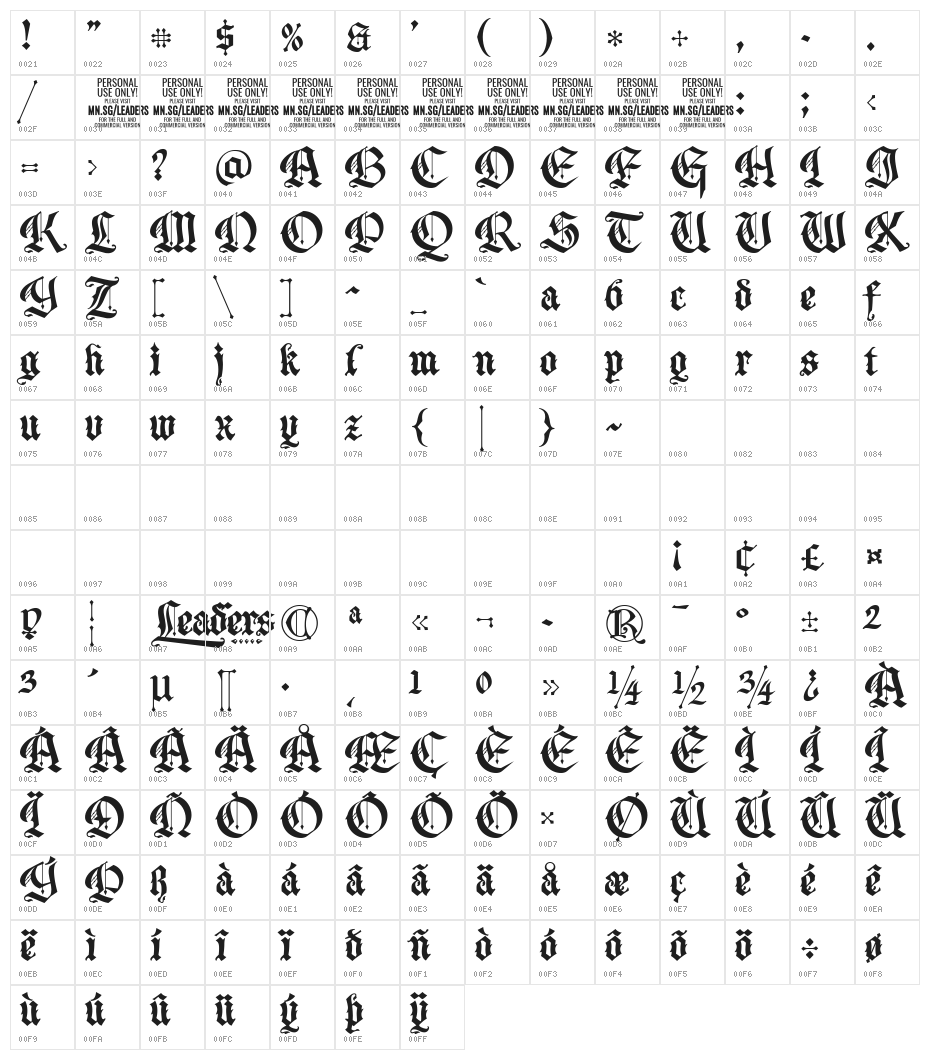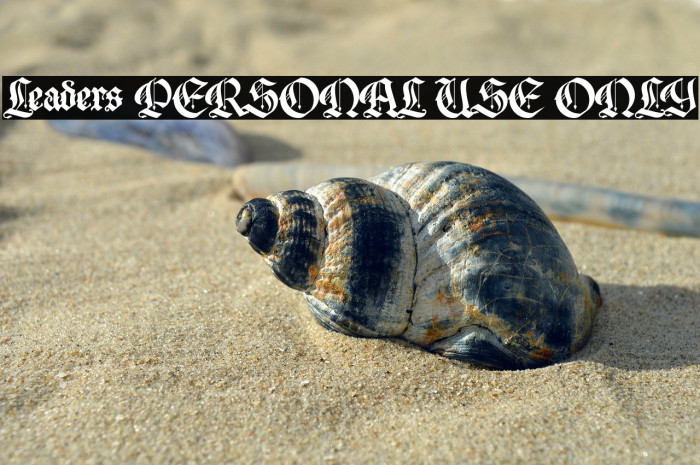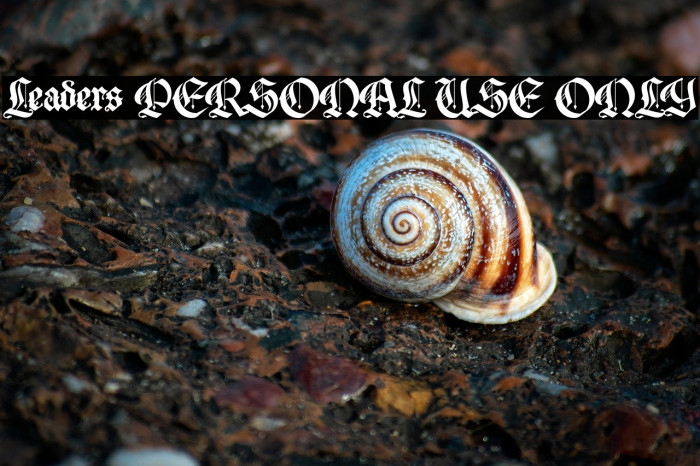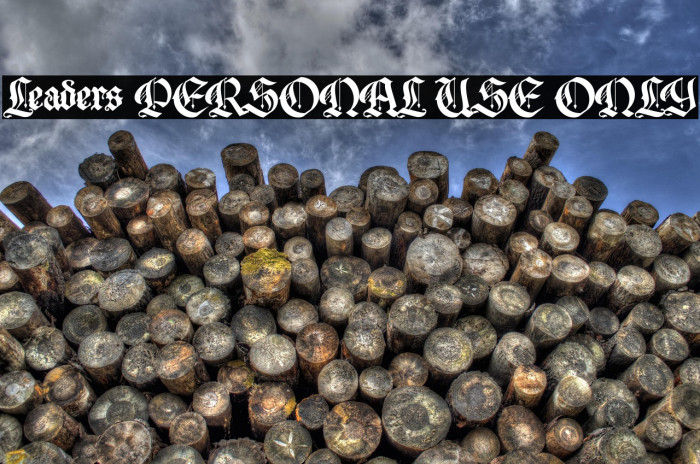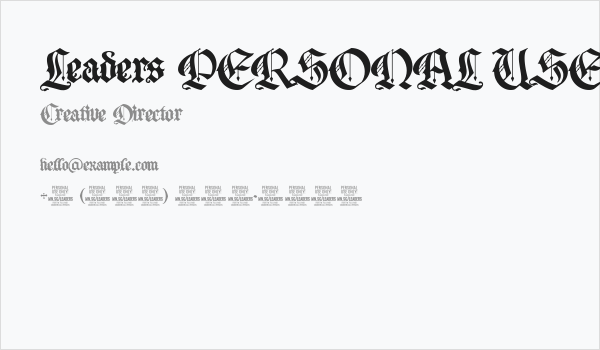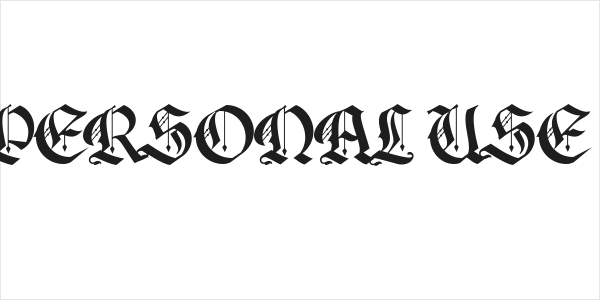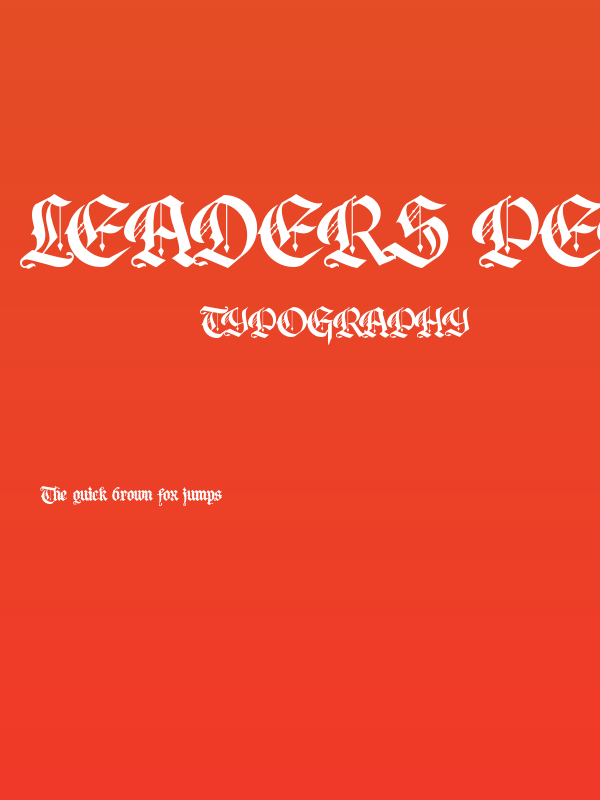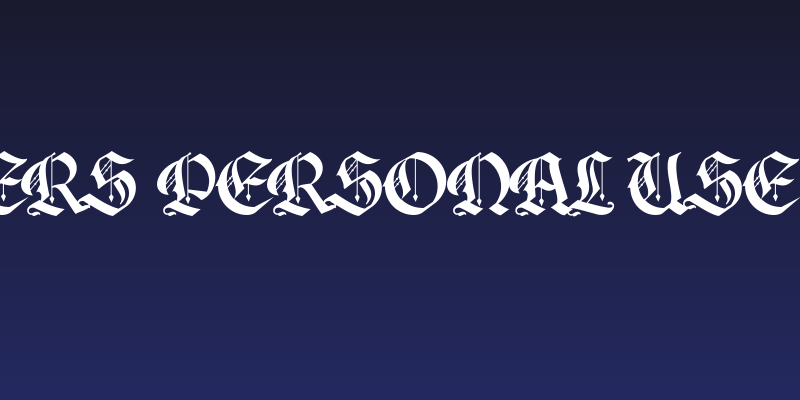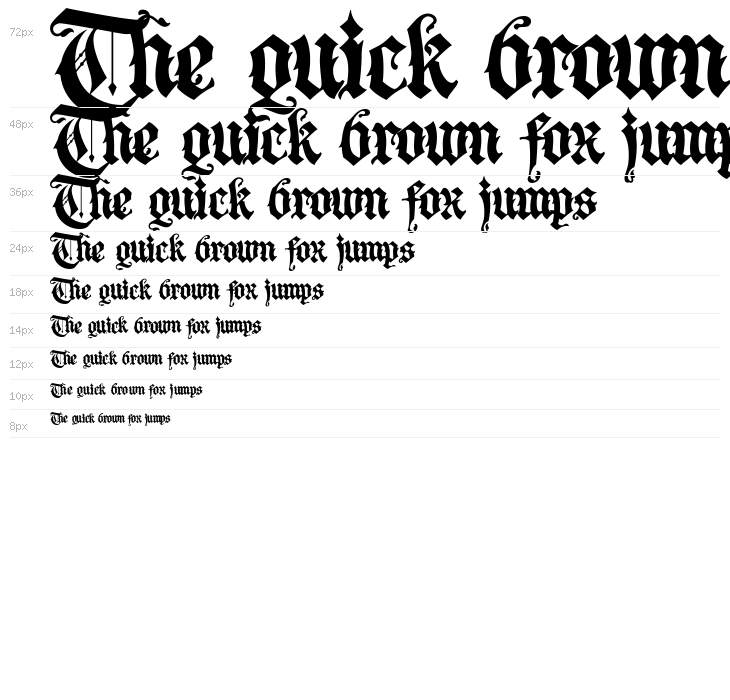
Leaders PERSONAL USE ONLY Font
Leaders PERSONAL USE ONLY Description
This font features a bold and intricate blackletter style, reminiscent of traditional Gothic script. The characters are highly decorative with elaborate flourishes and sharp angles, giving it a dramatic and historical appearance. The uppercase letters are particularly ornate, with extended serifs and intricate detailing, while the lowercase letters maintain the same level of embellishment. This font is designed to capture attention and convey a sense of tradition and formality. The numerals and special characters are equally stylized, maintaining the overall aesthetic of the font.
| Use Case | Logos, Headlines, Decorative purposes |
| Proposed Projects | Ideal for projects requiring a historical or formal touch, such as certificates, invitations, branding for luxury products, or themed event posters. |